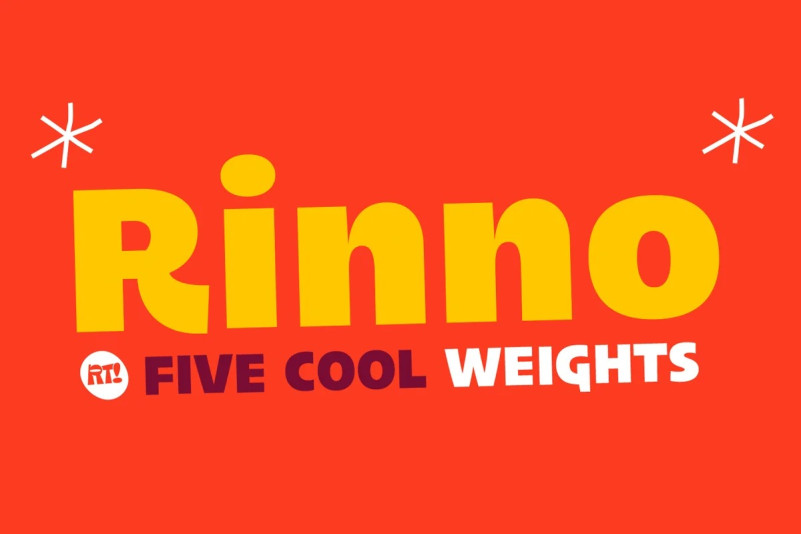
Rinno Font
How outstanding! Rinno Sans Serif Font, is a geometric typographic family with an organic touch. Contains 5 fun variants, Rinno is a perfect typeface for posters, packaging, logos and any visual communication